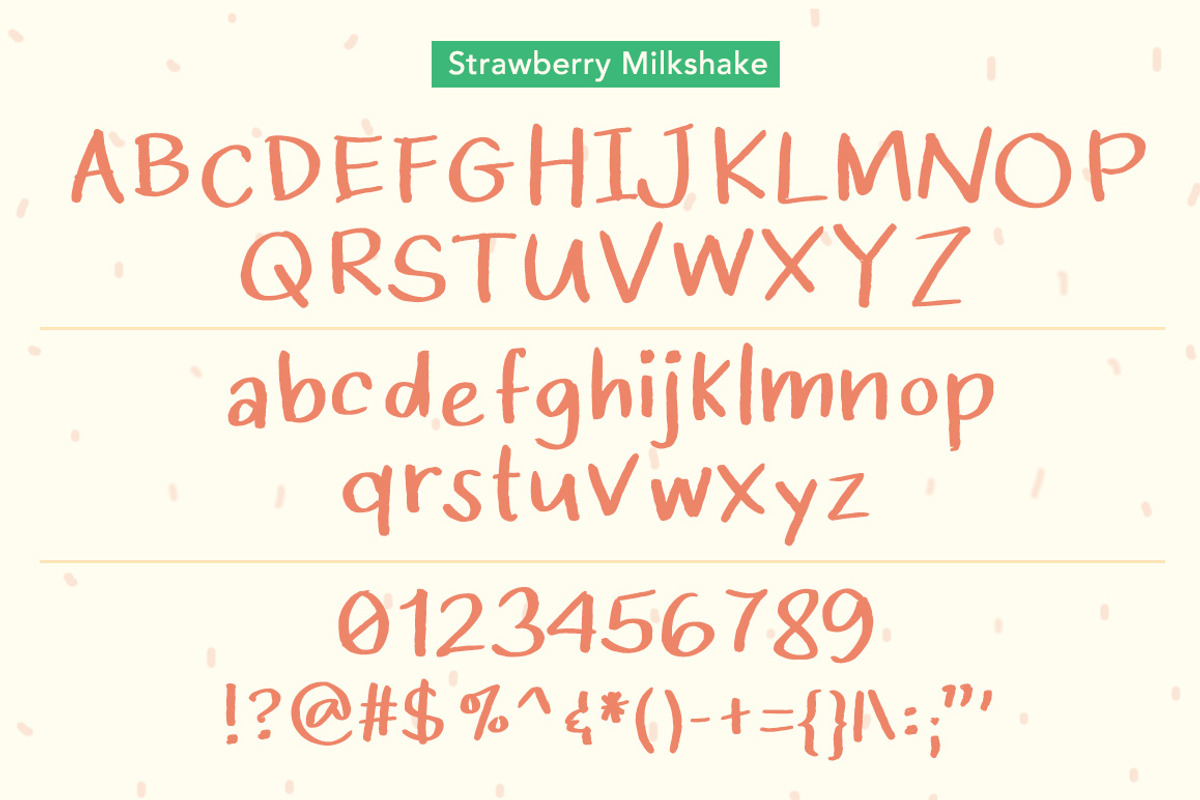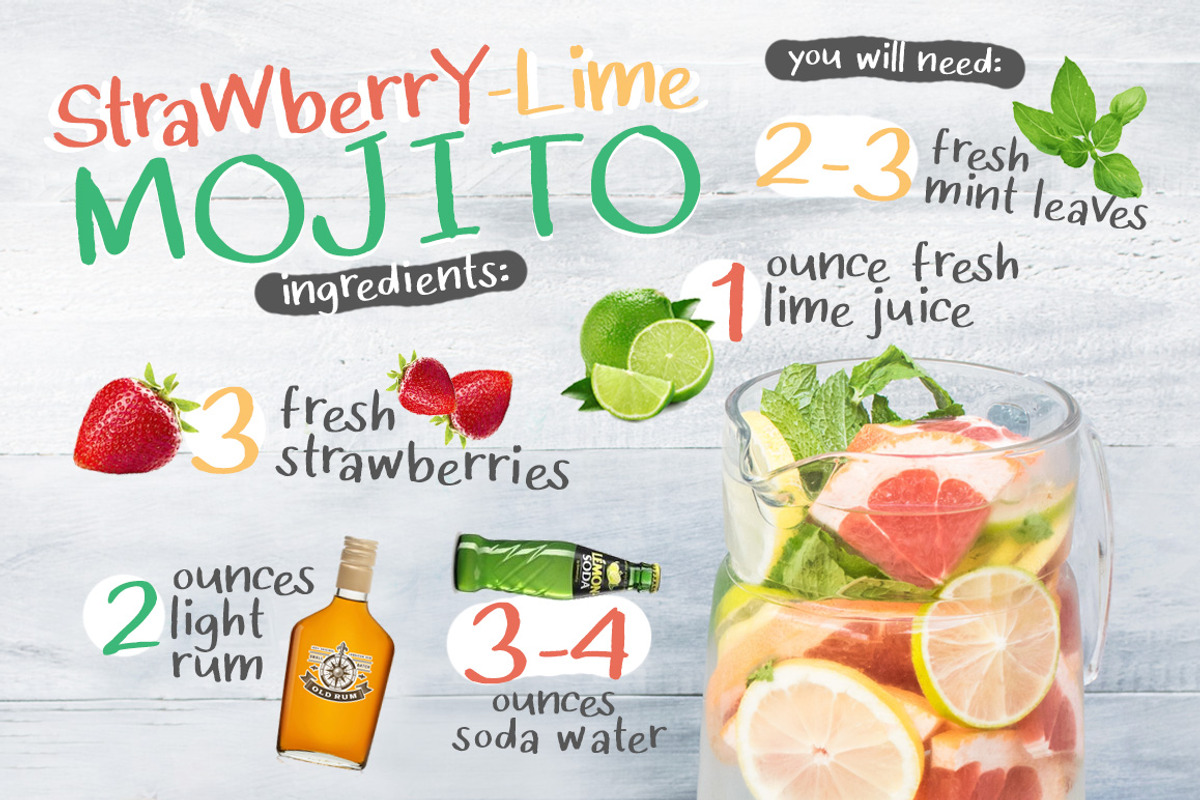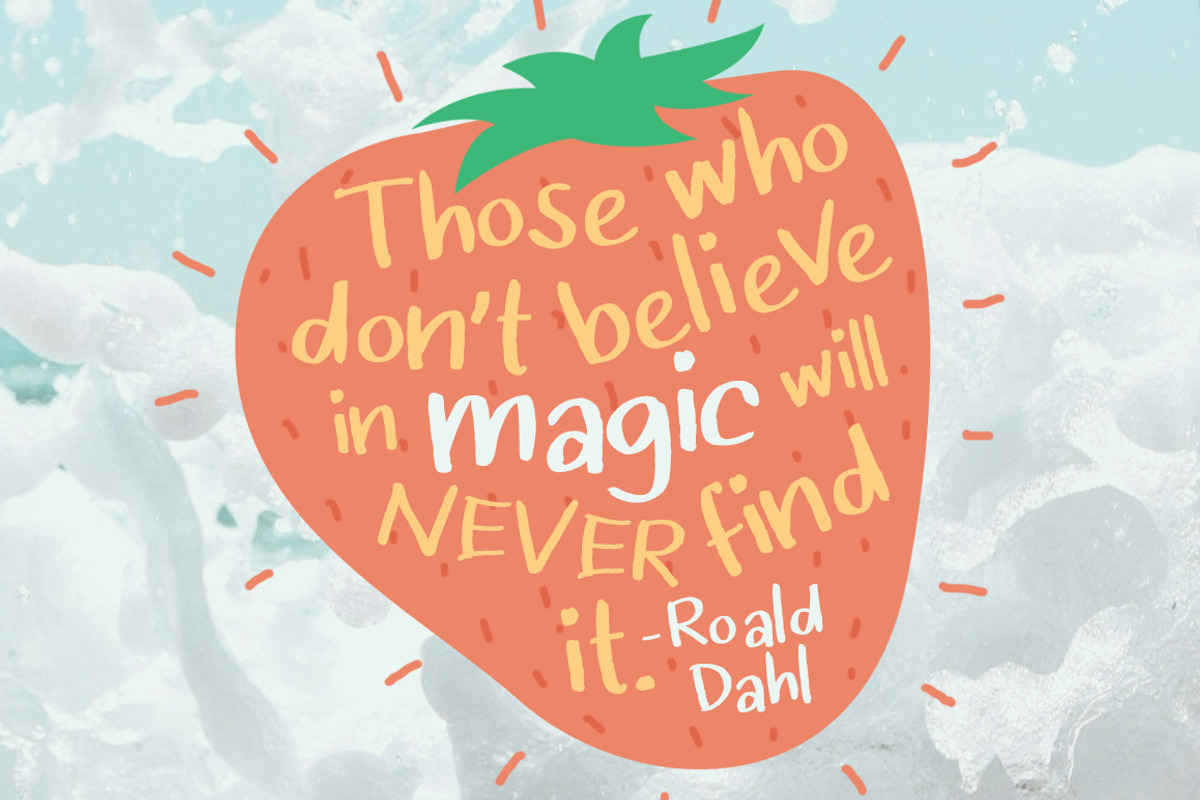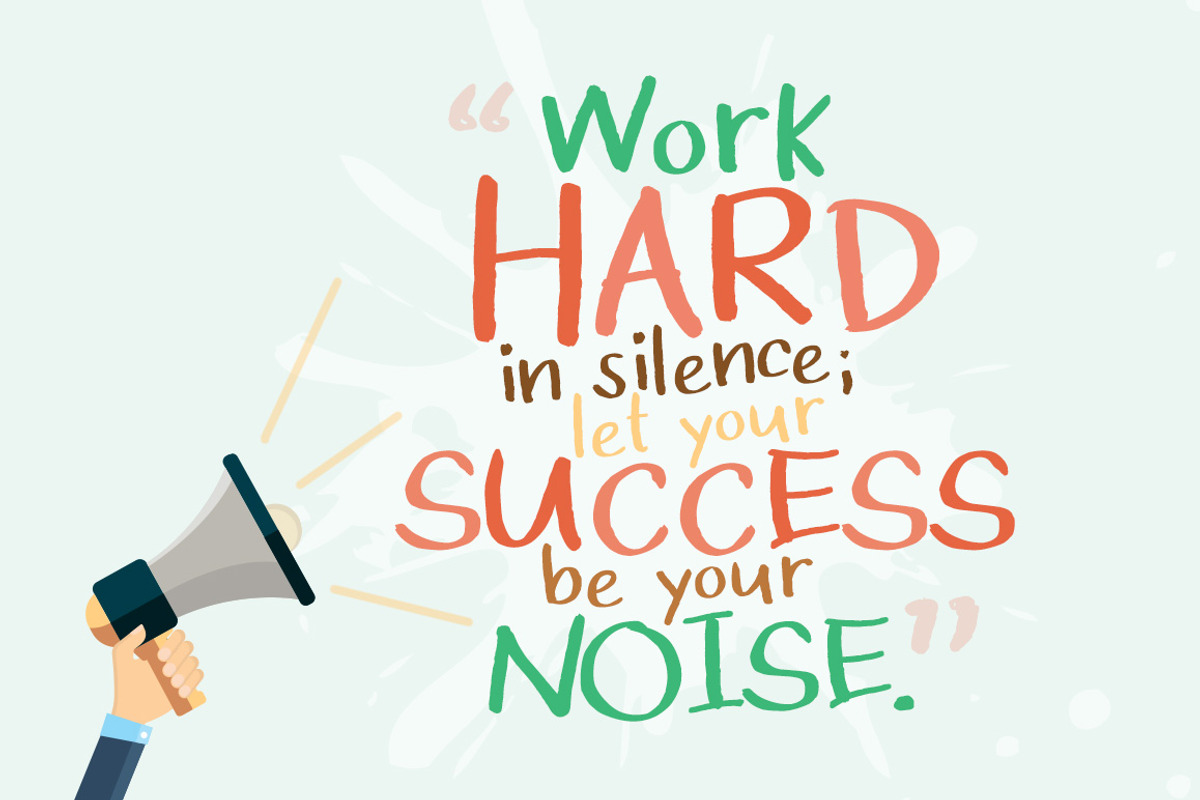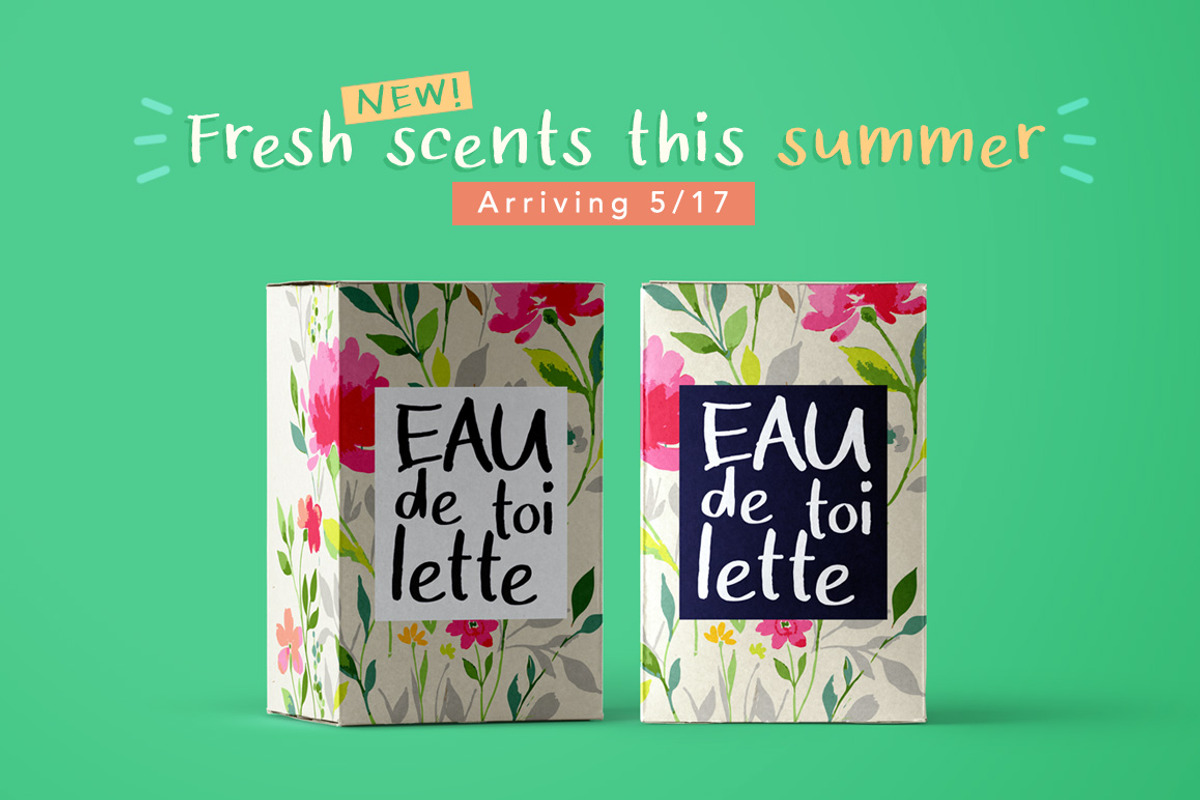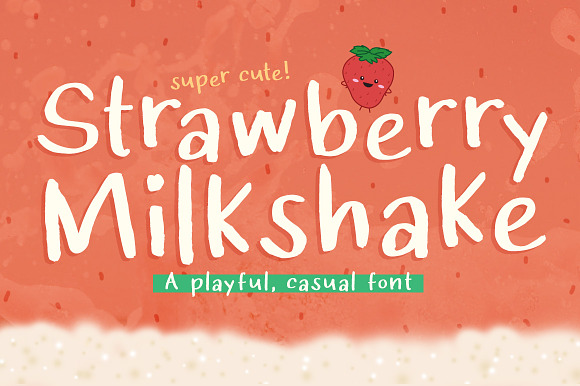
Strawberry Milkshake Font
Strawberry Milkshake is a cute, playful font that looks as if it was drawn with a marker. It has a dynamic baseline that gives you bouncy and fun letters to give the right handwritten and energetic yet casual vibe to your design projects.
Numerals and punctuation
European language characters